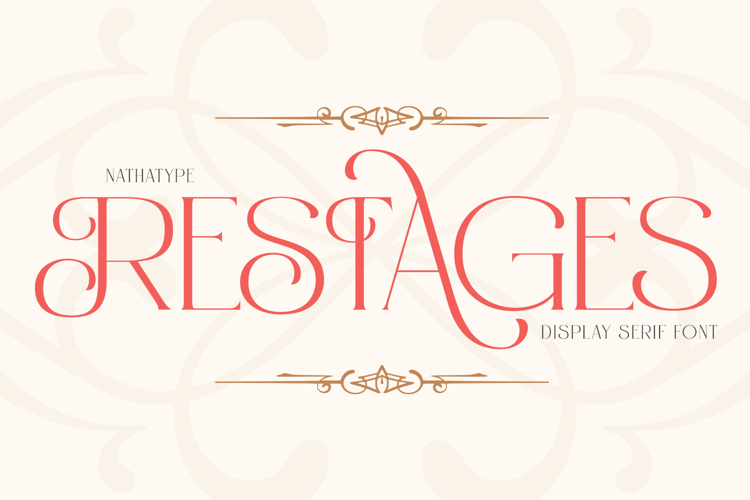
Restages Font
Product Description:
Restages is a capitalized display serif font with less thickness for an effortless readability. This font type is perfect for formal contents because of its stylish, elegant characters to strengthen the impressions delivered.
Features:
• Stylistic Sets
• Multilingual Supports
• Numerals and Punctuations =======================================================